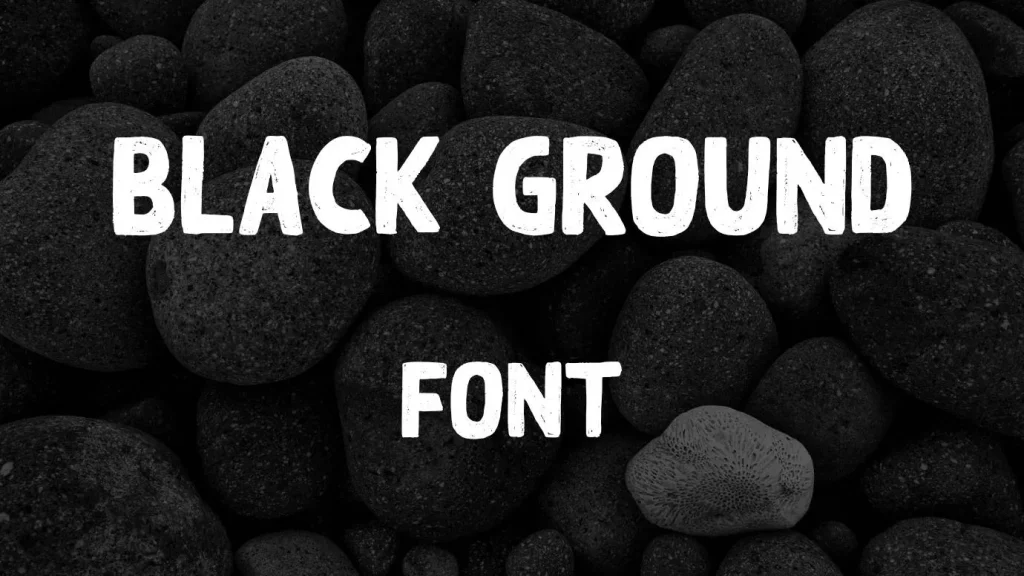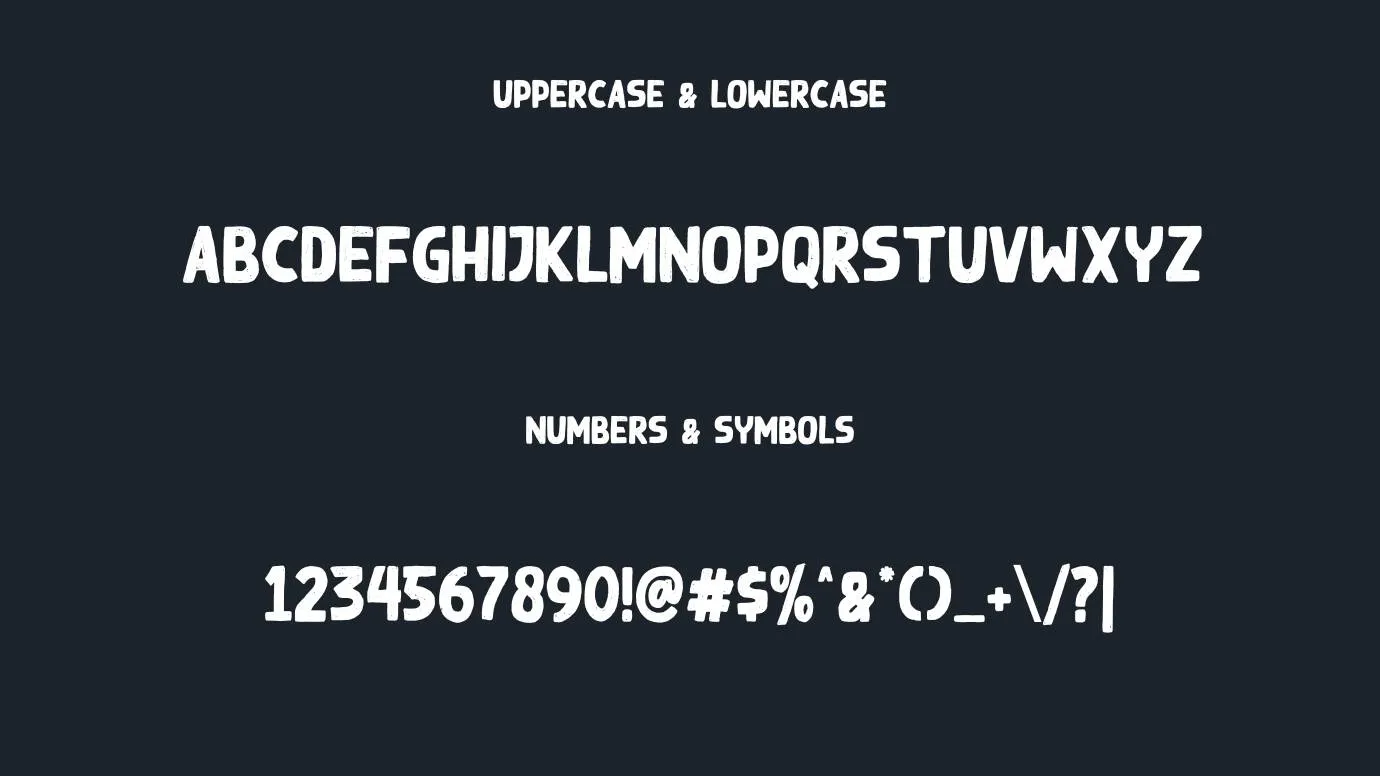
You can make gorgeous typographic and attractive graphics by using Black Ground Font. Garisman Studio created this amazing typeface this design would be excellent for long-term projects since it helps to produce simple and attractive layouts.
The font has excellent features and is suitable for all operating systems, including Windows, Mac, and Linux. This can be created by using a generating tool online. An attractive texture design can be seen in this typeface. This typeface is creative, unique and would be perfect for any design project.
It is a design that has a distinct character the font is ideal for any new project. It is suitable for a variety of purposes since it is simple to read and features trendy appeal.
The True Type and Open Type files for a font style both are available. Letters of this font, have a very smooth look there are few characters in every letter of this font that has the right height, and width, and ideal space between the letters.
As well as it can be used in brand design, this typeface is also appropriate for logos. The design is extremely unique yet recognizable, it is ideal for headings as well as other advertising purposes.
The character set of this font includes all the basic Latin characters, as well as accented characters. The font also includes numbers and punctuation.
This font style is a good option for product packaging. You can utilize black ground font in your product’s name and other branding logos.
This font is also good for printing designs and body text. However, it would be perfect for headlines, titles, or others.